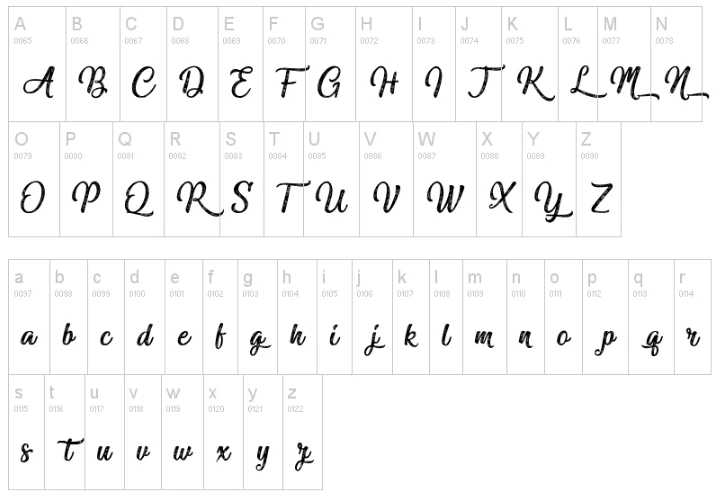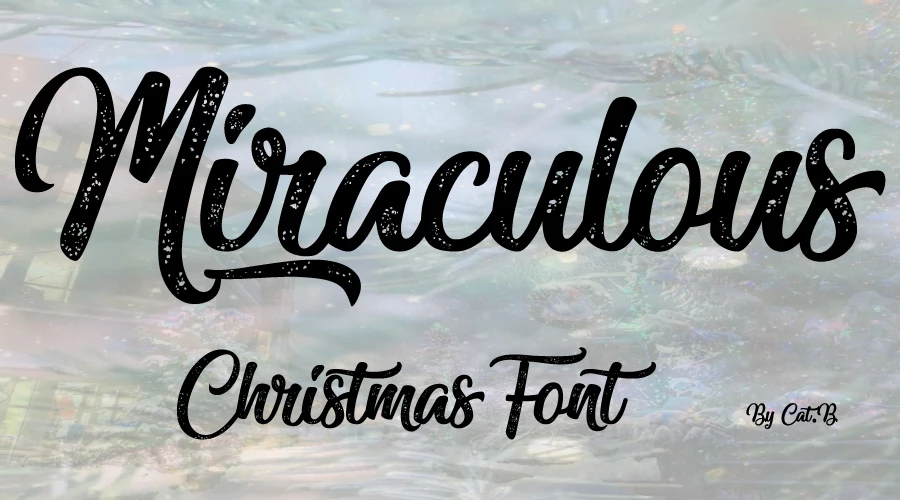
Miraculous Christmas is a top-notch holiday fancy font designed and uploaded by Cat.B, in December 2017. Cat.B worked for various different company fonts, especially their french website versions like Adidas, Disney, Ubisoft, KFC, Durex, etc. Some of her other famous works include Caramel and Vanilla, Laughing and smiling, Athena of the Ocean and etc.
Miraculous Christmas Font is a beautifully designed font that is perfect for adding a touch of holiday cheer to your projects. It is available in TrueType and OpenType and also in Web Front Format formats and includes uppercase, lowercase, and a few special characters. The font is compatible with Windows, Mac, Linux, and certain machine tools like Cricut and Silhouette, and can also be converted to a web font for websites too. In addition to being a versatile font that can be used for branding, advertising, invitations, literature, event designs, icons, cards, booklets, t-shirts, and social media posts, Miraculous Christmas Font is especially well-suited for creating holiday or Christmas greetings and wallpaper. Its festive design and range of color options make it ideal for creating beautiful images and text for any holiday project.
What is the Miraculous Christmas font?
Ans: Miraculous Christmas is a beautifully designed fancy holiday font that is perfect for adding a touch of holiday cheer to your projects. It is available in TrueType and OpenType formats and includes uppercase, lowercase, and a few special characters.
What can I use the Miraculous Christmas font for?
Ans: The Miraculous Christmas font is versatile and can be used for a wide range of purposes, including branding, advertising, invitations, literature, event designs, icons, cards, booklets, t-shirts, and social media posts. It is especially well-suited for creating holiday or Christmas greetings and wallpaper.